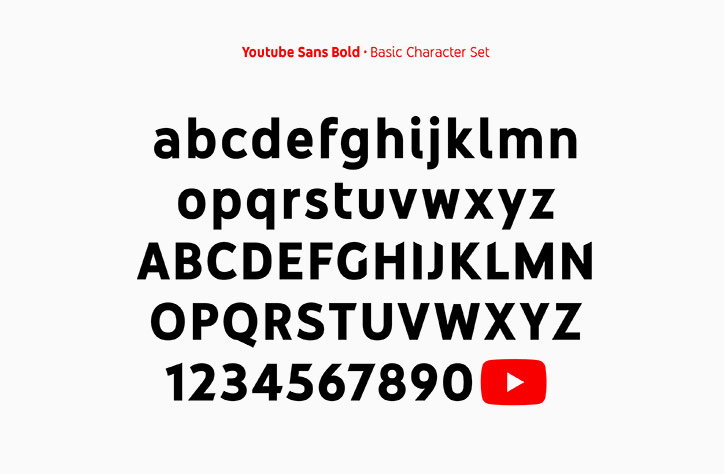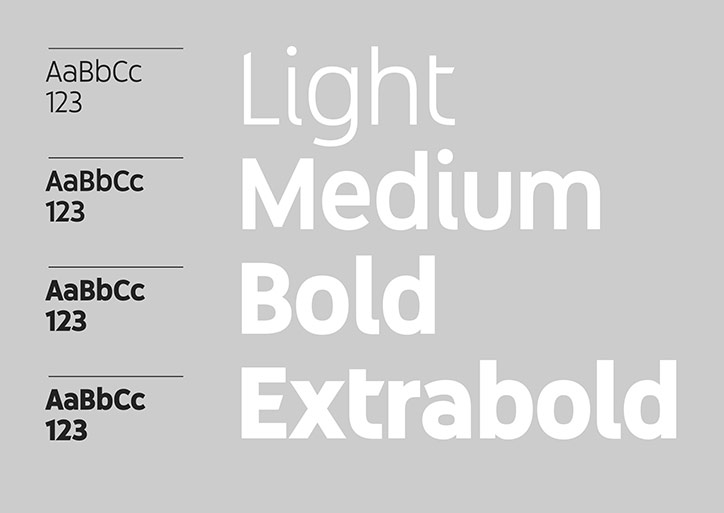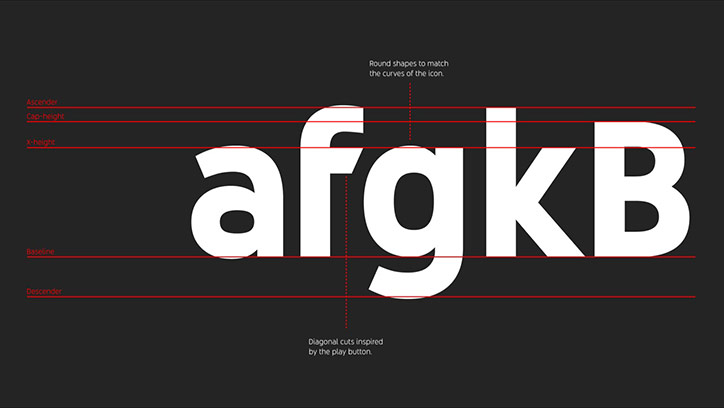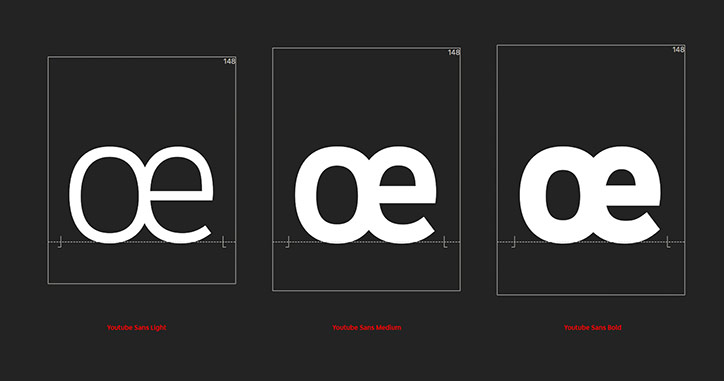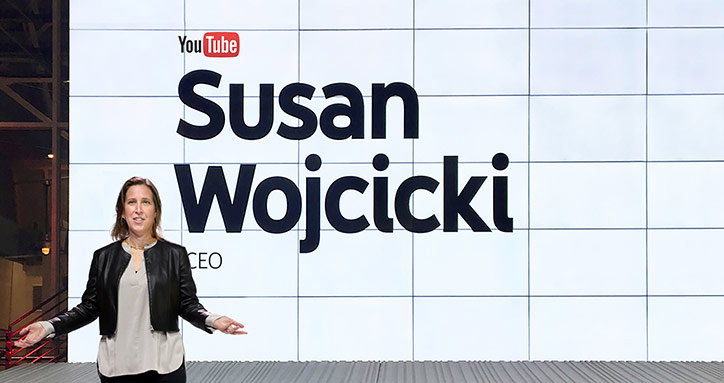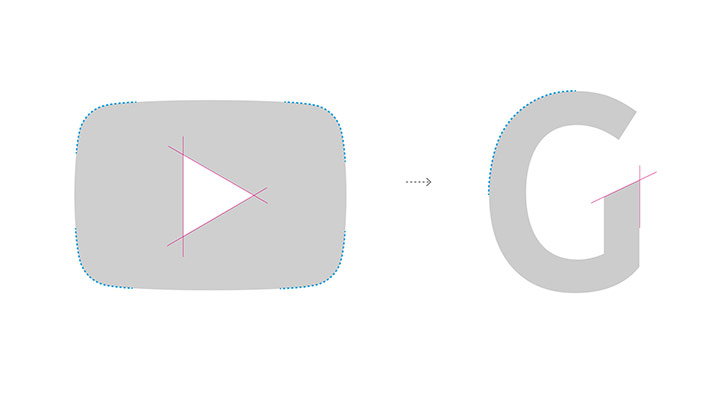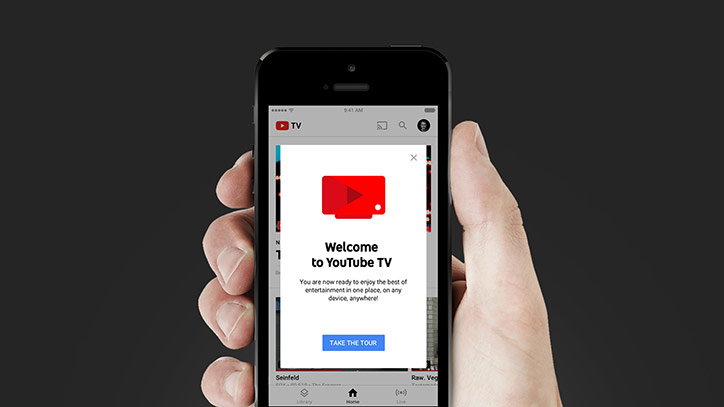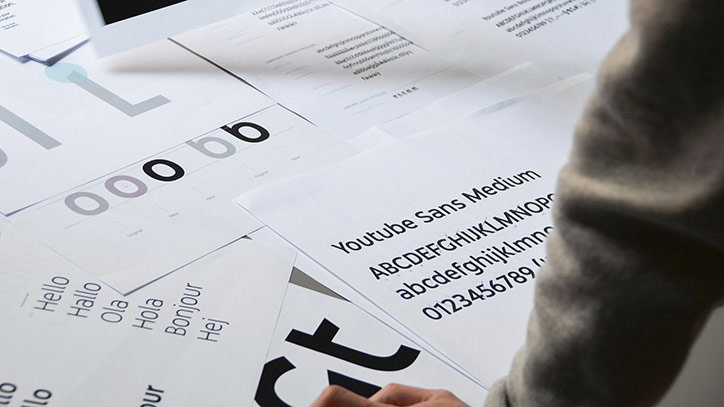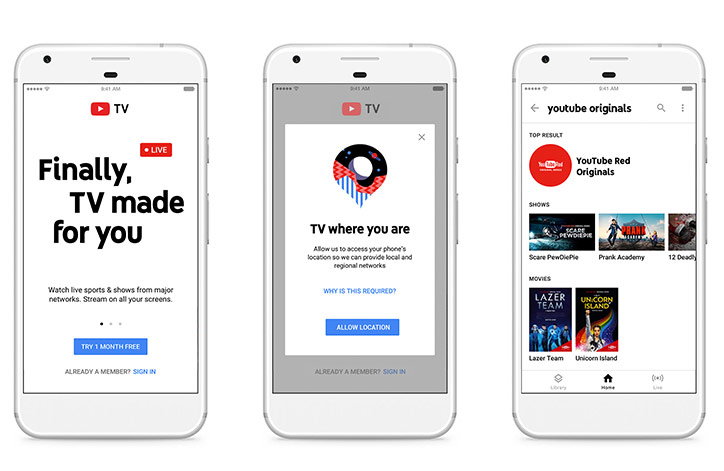
YouTube releases its first own-brand font, YouTube Sans, inspired by the play button
YouTube has released its first own-brand font, YouTube Sans, designed by branding agency Saffron in collaboration with Letterjuice, URW++ and YouTube’s UX team. Designed to “express a uniquely YouTube aesthetic”, the typeface includes a play button glyph, so the brand’s icon can be typed like any other letter or symbol.
According to Saffron, one of its first tasks was to redraw and refine the play button icon “to make sure its curves and angles were perfect” before making it into a glyph.
The letterforms are inspired by the play button, softly rounded to match the curves of the icon’s outer edges, with angled diagonal cuts into the ends, drawn from the central triangle. It comes in light, medium and bold weights.
YouTube Sans was launched with YouTube TV, the company’s new live streaming service, and is used in bold across the interface. The face is designed to be used in all product and marketing communications.
Saffron says: “It is slightly quirky and expressive, but also simple and bold, just like the platform it calls home.”